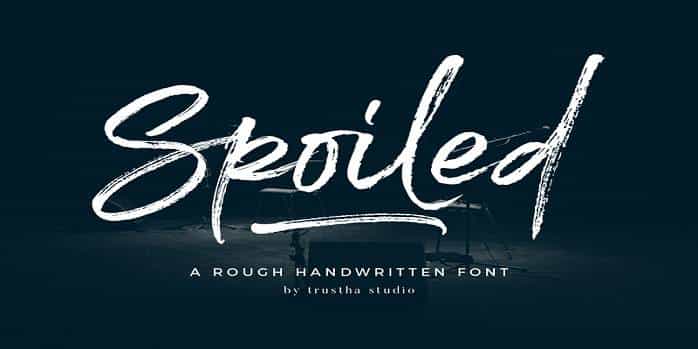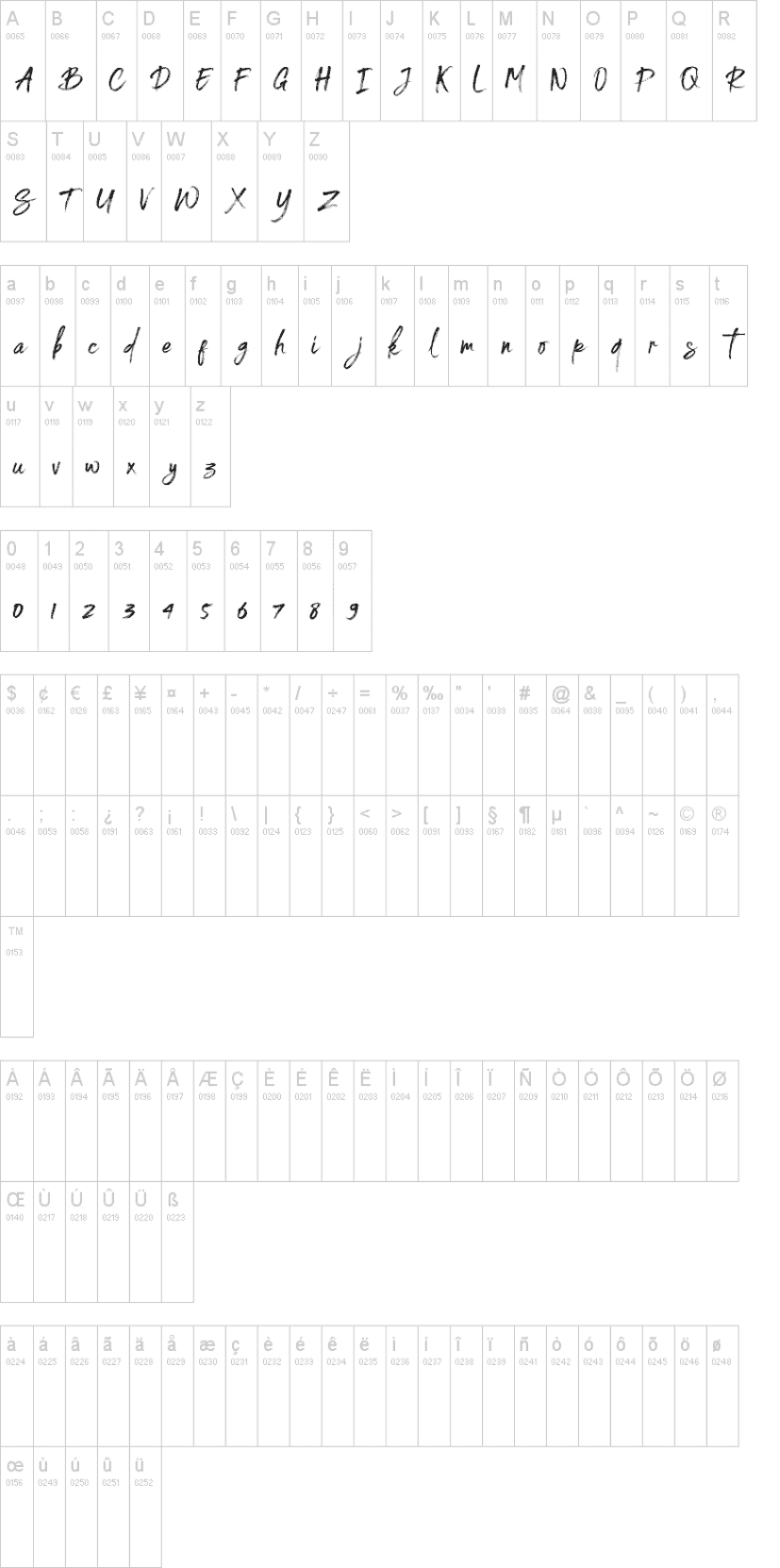
The Spoiled is a rough handwritten brush font. The style it comes with is natural making it ideal for branding, advertising, poster design, logo, book covers, magazines, packaging, website headers, greeting cards, apparel designs merchandise, fashion campaigns newsletters, album covers, and quote designs among others.